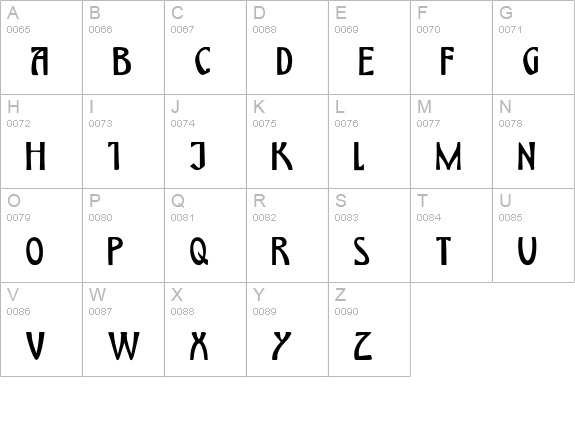
DK Himmelblau Font Details
Introducing DK Himmelblau, a stunning font that will elevate your designs to new heights. This font is a perfect blend of elegance and modernity, making it ideal for a wide range of projects. Whether you're crafting a logo, designing a website, or creating eye-catching graphics, DK Himmelblau will captivate your audience with its unique and distinctive style. With its sleek and fluid letterforms, DK Himmelblau exudes a sense of sophistication and creativity. Each character is meticulously crafted to ensure smooth readability and visual harmony. From its gentle curves to its confident strokes, this font embodies a harmonious balance between classic and contemporary design elements. One of the best features of DK Himmelblau is that it is freely available to download at FontsMarket.com. This means that you can unleash your creativity without any limitations or constraints. Whether you're a professional designer or a hobbyist, this font allows you to explore new possibilities and experiment with different styles. The versatility of DK Himmelblau is truly remarkable. It effortlessly adapts to various design contexts, from elegant and refined projects to bold and edgy creations. Its wide range of weights and styles ensures that you'll find the perfect match for your specific needs. In addition to its aesthetic appeal, DK Himmelblau also boasts exceptional legibility, making it an excellent choice for both print and digital applications. Whether it's displayed on a billboard or on a small screen, this font stands out with its clarity and readability. So why wait? Experience the creativity and freedom that DK Himmelblau offers. Download this incredible font today from FontsMarket.com and embark on a design journey that knows no bounds. Unleash your imagination and let DK Himmelblau bring your ideas to life with its captivating charm and timeless elegance.